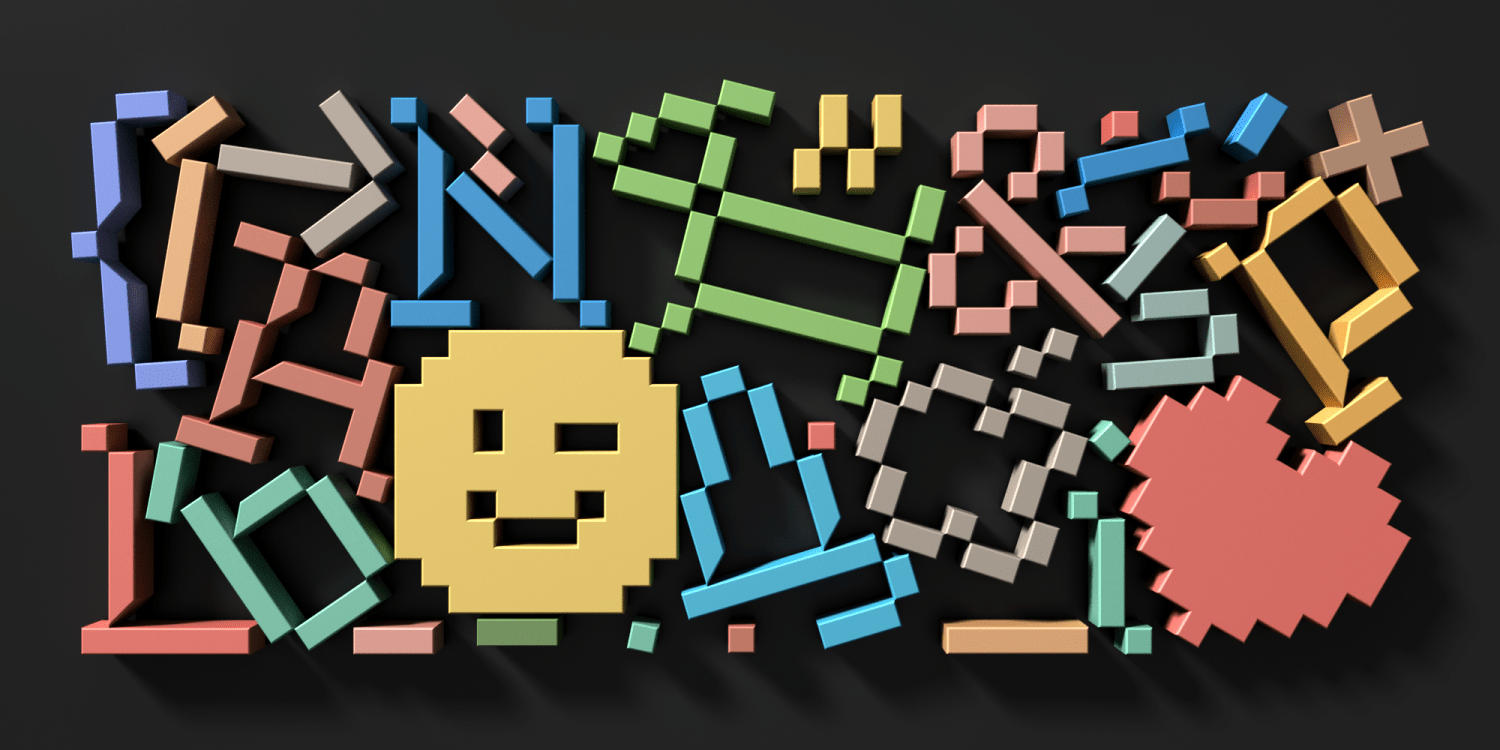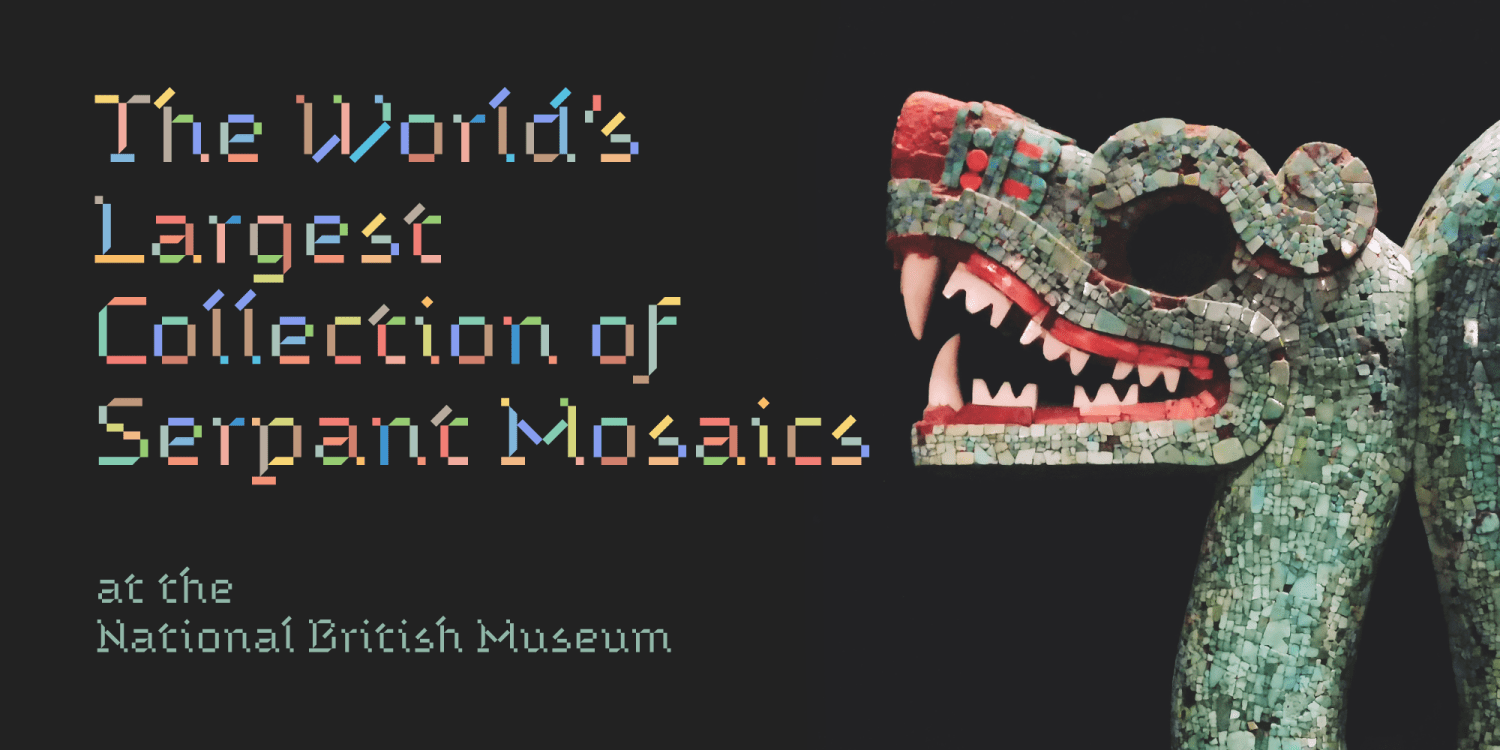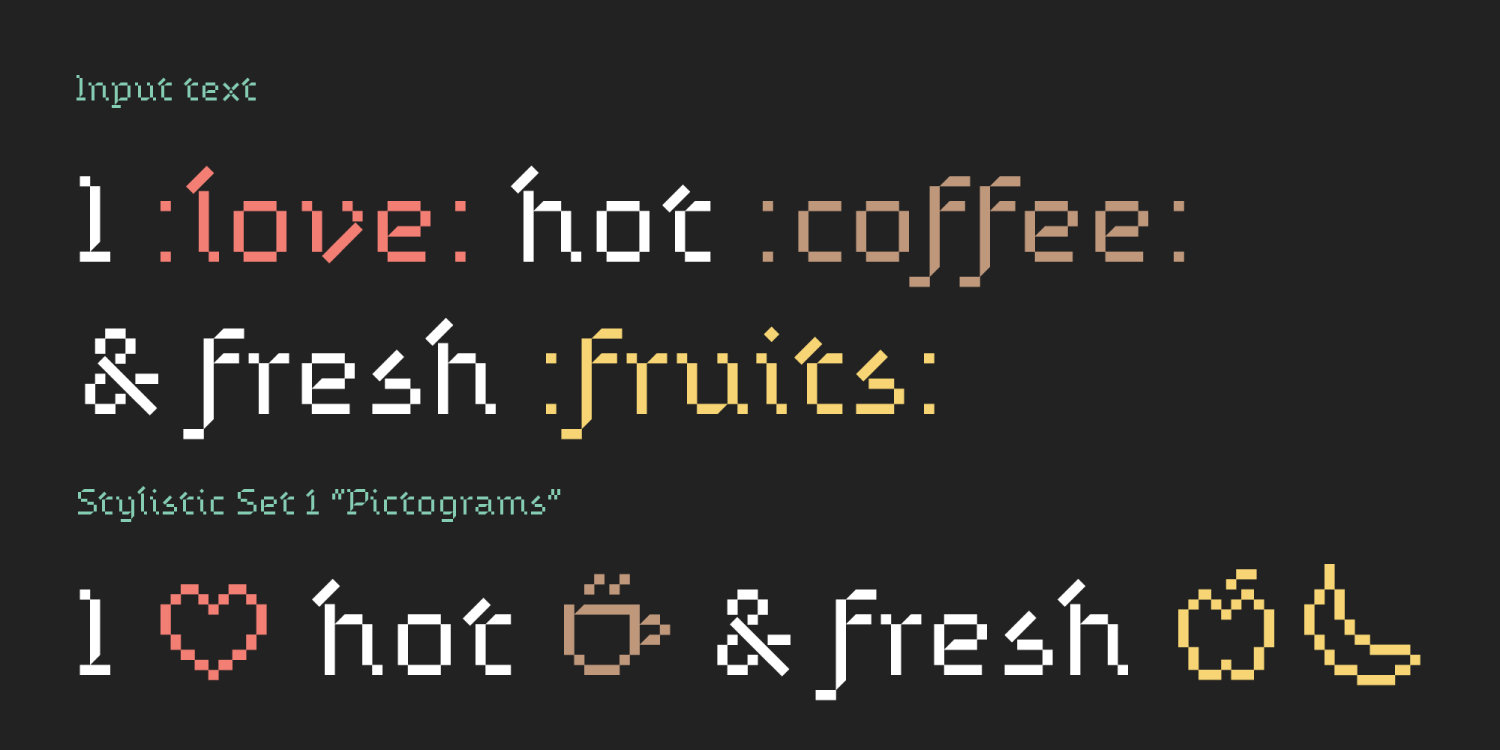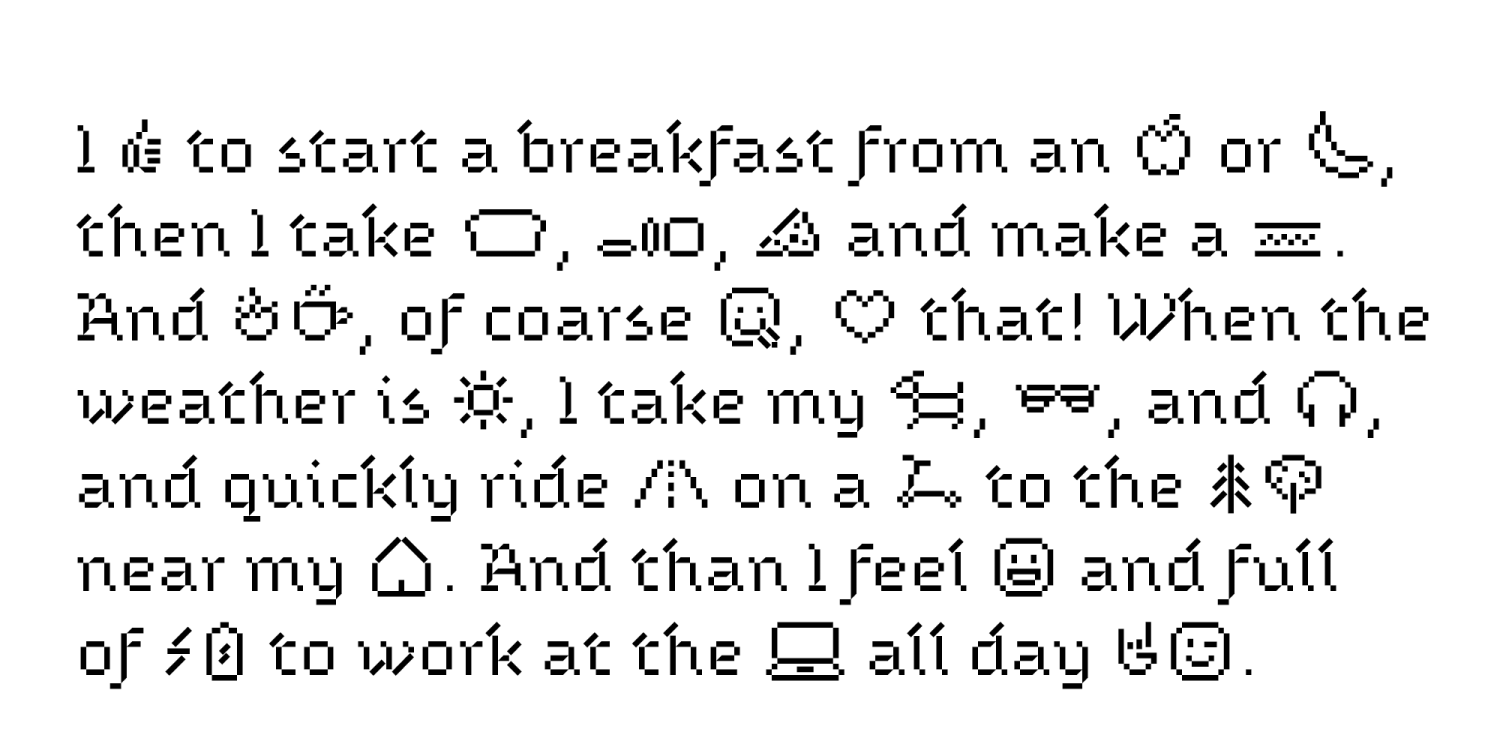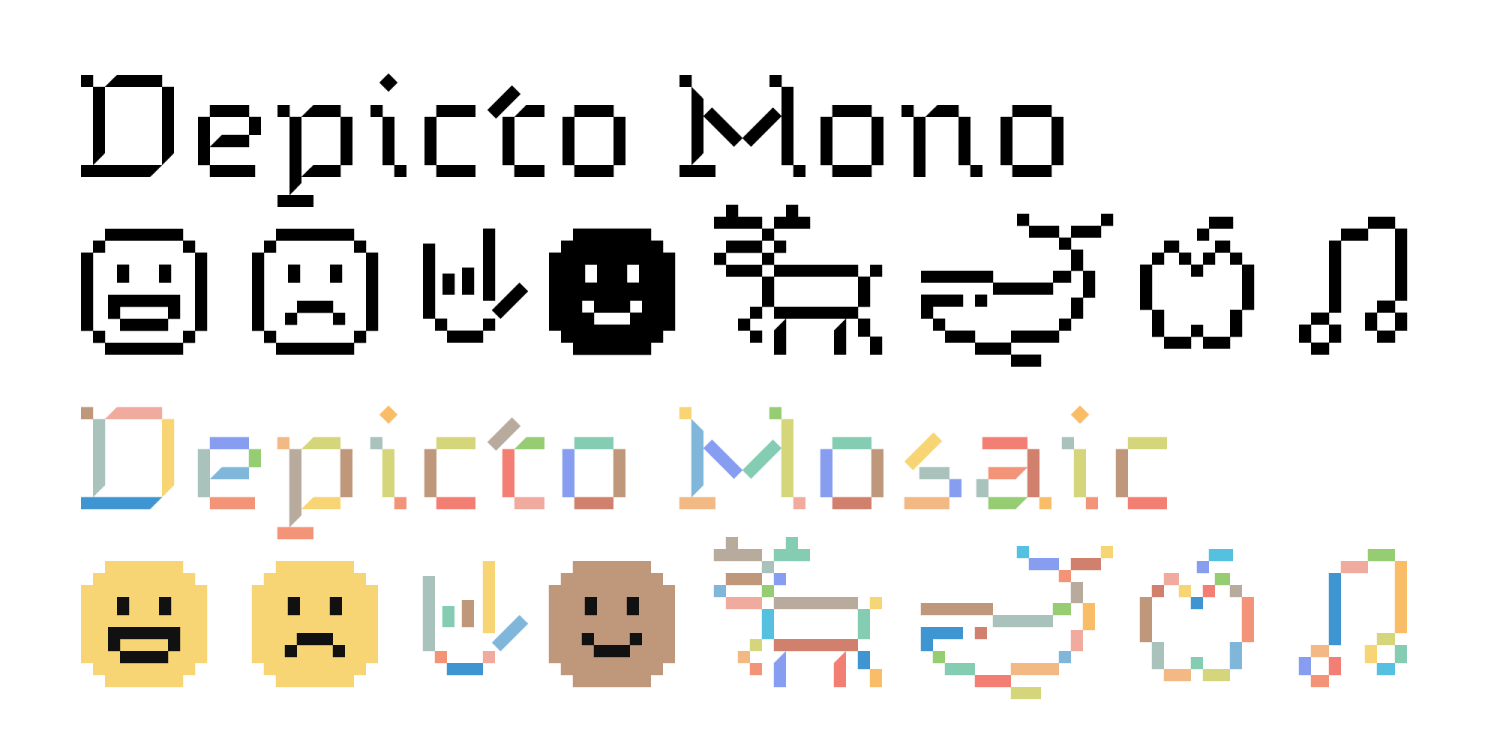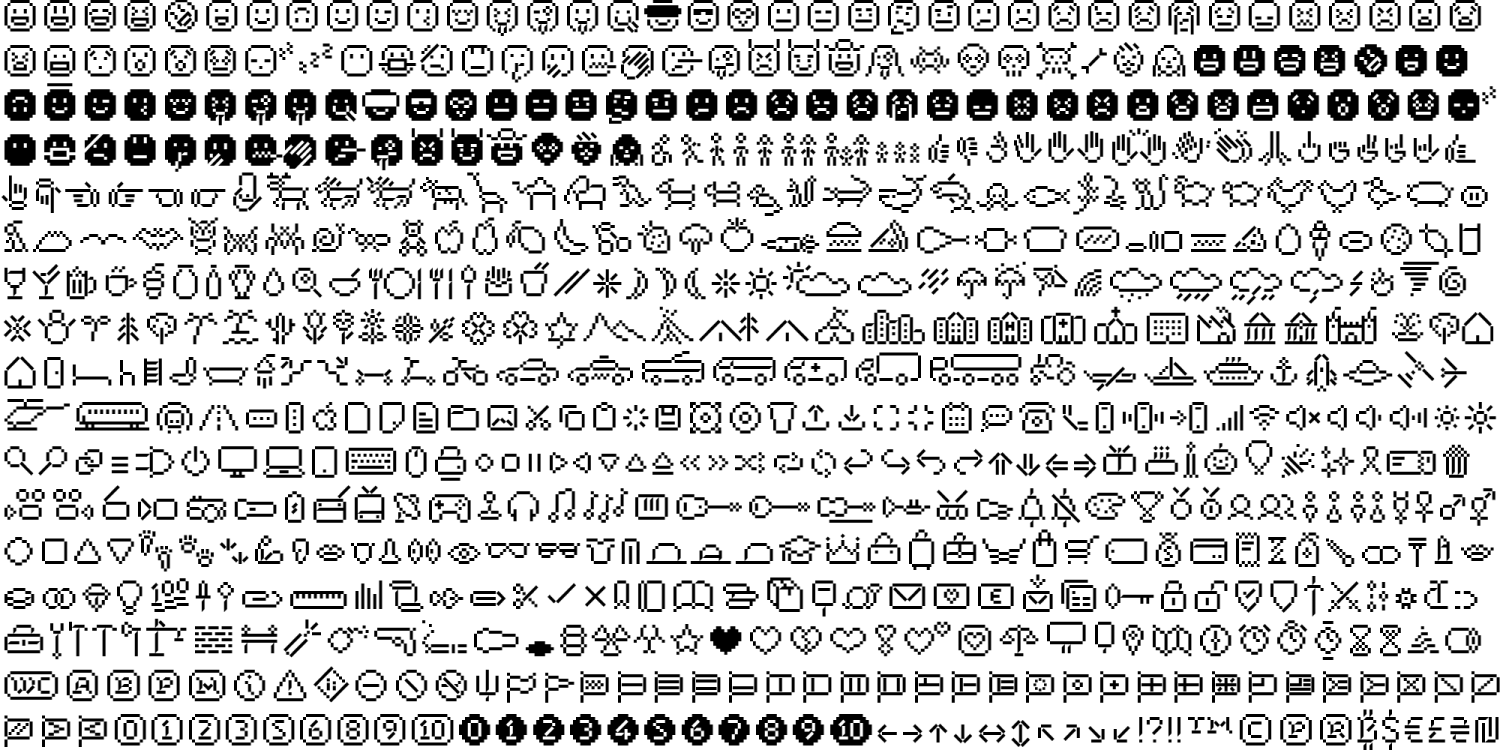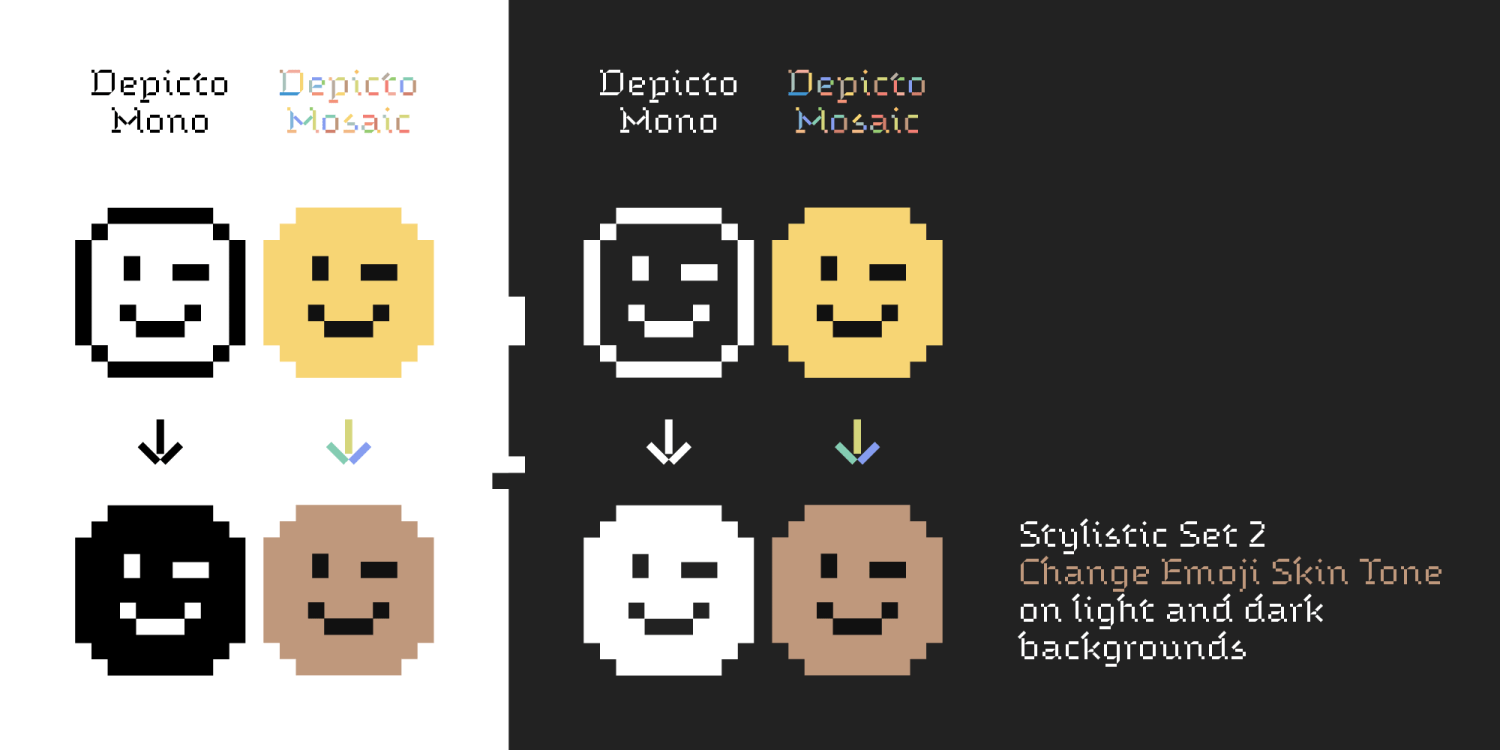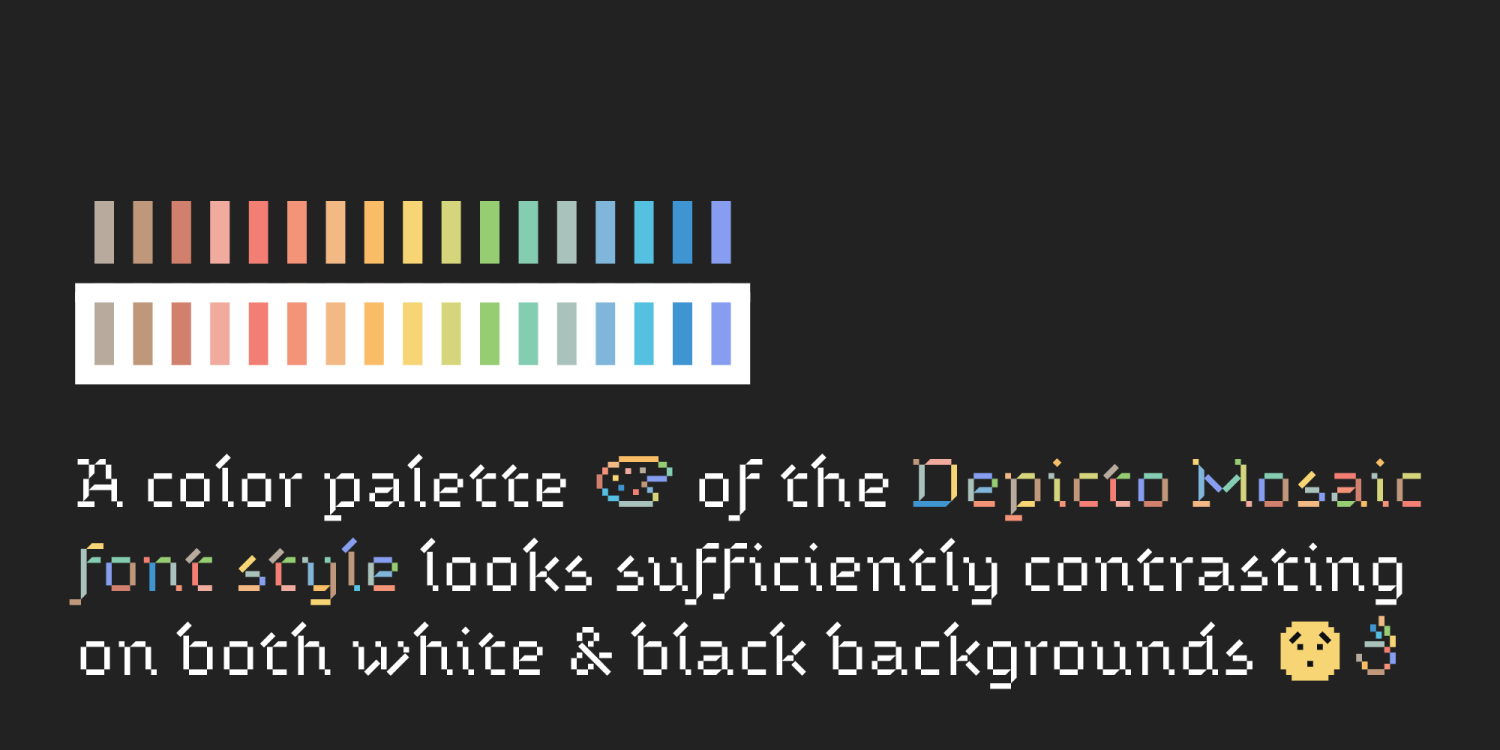
Depicto
Font Family by Michael Rafailyk
A pixelated typeface with asymmetrical serifs intended to depict emojis in coarse mosaic shapes and represented in two styles that perfectly complement each other – Mono (casual font) and Mosaic (color font).
Concept (from author)
As a child, I liked to play with plastic constructors. It was something much simpler than lego, but these colored blocks took up a lot of my time, a lot ) And of course, I liked 8-bit video games. It was not long, somewhere in the 6th-8th grade of school. Not long, but fascinating. As I remember, that was the Dendy Junior console. All those childhood memories were reflected in the Depicto font family.
Out of respect for 8-bitness, almost all the dimensions are multiples of 8 – a letters elements have a width of 80 points and a length of 80, 160, 240, 400, and so on, as well the spacing between the characters and the vertical metrics. Although inspired by pixelation, the font plays with its own geometry. Using simple squared shapes, it balances between pixel-perfect and diagonal mosaic. The letters construction is based on rectangles – horizontal, vertical, and rotated by 45 degrees. It is important to note that the letters consist of separate non-intersecting elements, each of which, in the Depicto Mosaic font style, is painted in different colors.
The font also uses upper left and lower right horizontal serif strokes. Such asymmetrical serifs are typical for Ukrainian typography since the works of Heorhiy Narbut. Their digitization and pixelization calls for a new look at artistic constants.
Color font
Stylistic Set 1 “Pictograms”
The main font feature is a large set of 600+ pictograms and emoticons. It doesn't cover all possible Unicode pictograms, but the set may be expanded in future updates. There are a two ways how to use them.
1. By manually selecting pictograms from the Glyphs panel in a graphic editor.
2. By activating the Stylistic Set 1 and typing the pictogram keywords like :smile::happy: :rofl: :sad: :facepalm: :pear: :rose: :horse: :bike::house: :laptop: and so on. For example: I'm so :happy: to see these beautiful :tulips: and :roses: in your :garden:, good work :clap:.